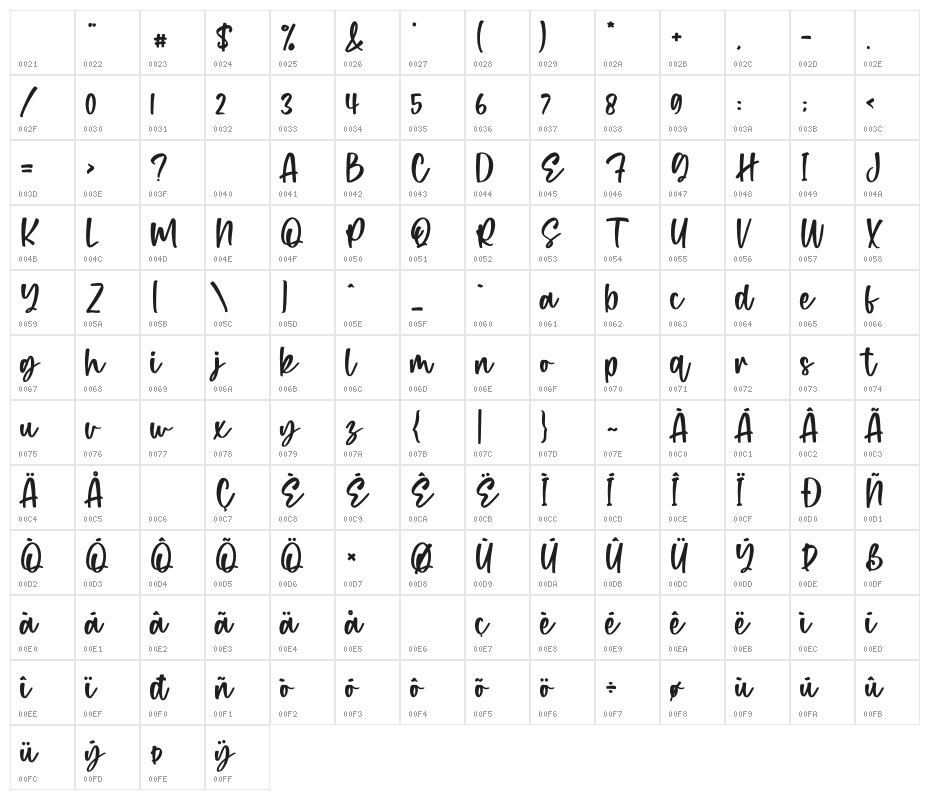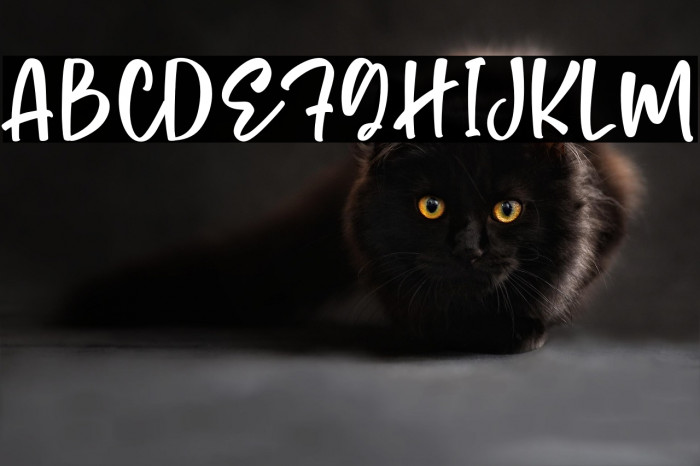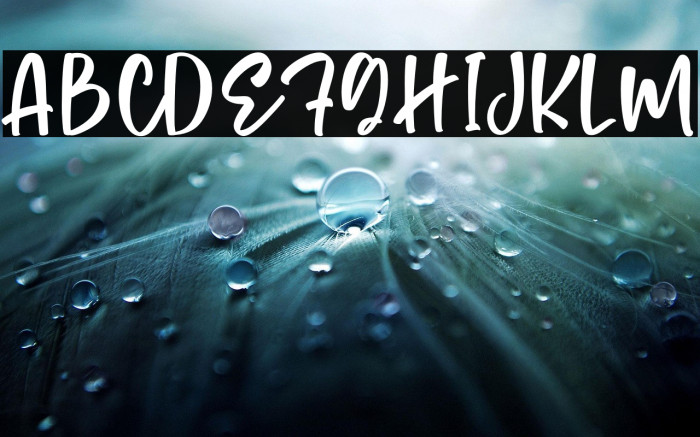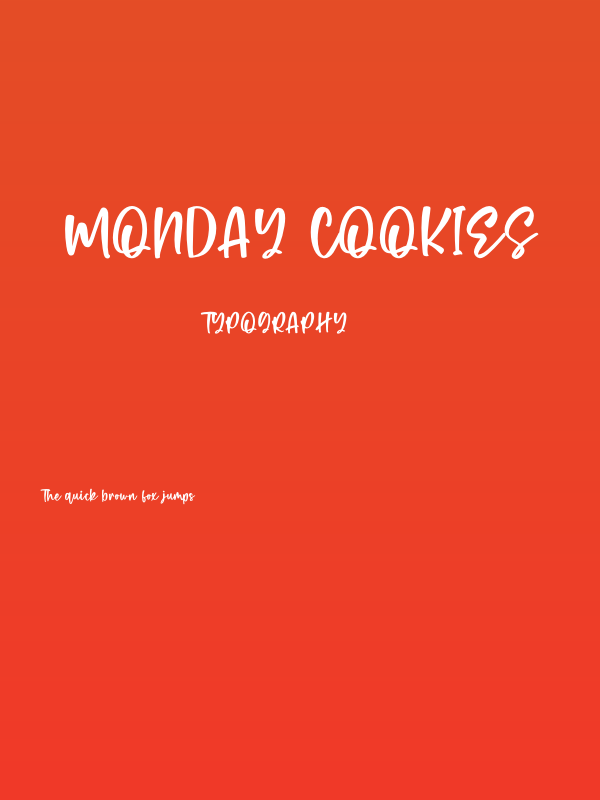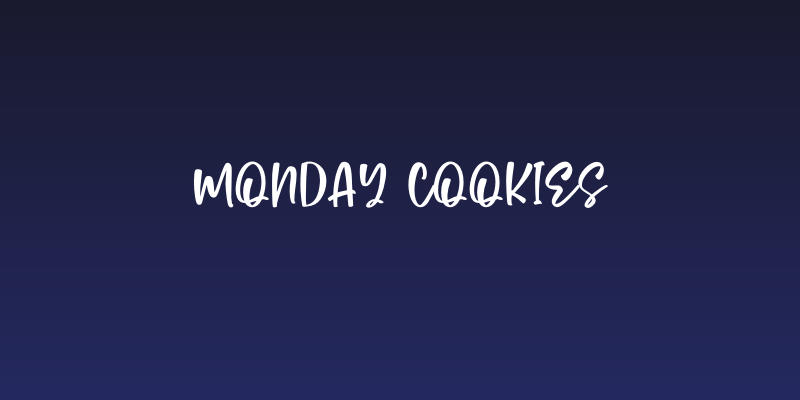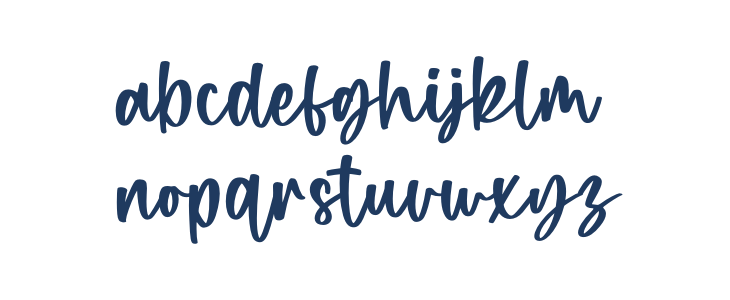
Monday Cookies Font
Monday Cookies Description
This playful and energetic font features a handwritten style with a bold and flowing script. The characters are connected in a fluid manner, giving it a lively and dynamic appearance. The uppercase letters maintain a consistent height, while the lowercase letters exhibit a charming irregularity that adds to its casual feel. Numbers and special characters are crafted with the same whimsical touch, ensuring a cohesive look across all elements. The strokes are thick and confident, providing a strong presence on any medium.
| Overall Style | Playful |
| Use Case | Logos, Headlines, Social Media |
| Proposed Projects | Ideal for greeting cards, playful branding, social media graphics, and personal projects that require a friendly and approachable touch. |